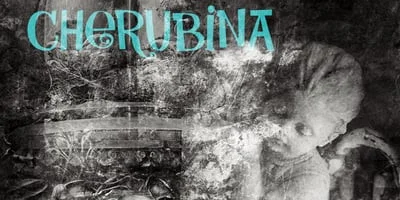
Cherubina Font
Cherubina Font is perfect for baby product packaging, nursery room decor, children's book illustrations, baptism invitations, angelic themed events, innocent beauty brands, pure wellness centers, heavenly dessert shops, christening materials, and any projects that need adorable typography with cherubic sweetness and innocent angelic charm.
What makes Cherubina Font exciting is its adorably sweet design that captures the pure innocence and heavenly sweetness of cherubic angels with letterforms that seem blessed with childlike wonder and divine cuteness. This enchanting typeface features gentle characteristics with angelic proportions that evoke baby smiles, soft clouds, and the precious innocence of childhood where everything is pure, sweet, and touched by heavenly grace. The font's cherubic character makes it perfect for brands targeting families and children, communicating safety, purity, and the tender love that protects and nurtures the most precious souls in our lives.
Cherubina Font family includes angelic style variations featuring light, regular, medium, and bold weights. The font family also offers heavenly italic versions with enhanced flowing sweetness, along with playful variants that maximize the cherubic appeal. Special features include baby ornaments, angel wing symbols, and innocent decorative elements that enhance the pure atmosphere of child-focused design applications and family-oriented communications.